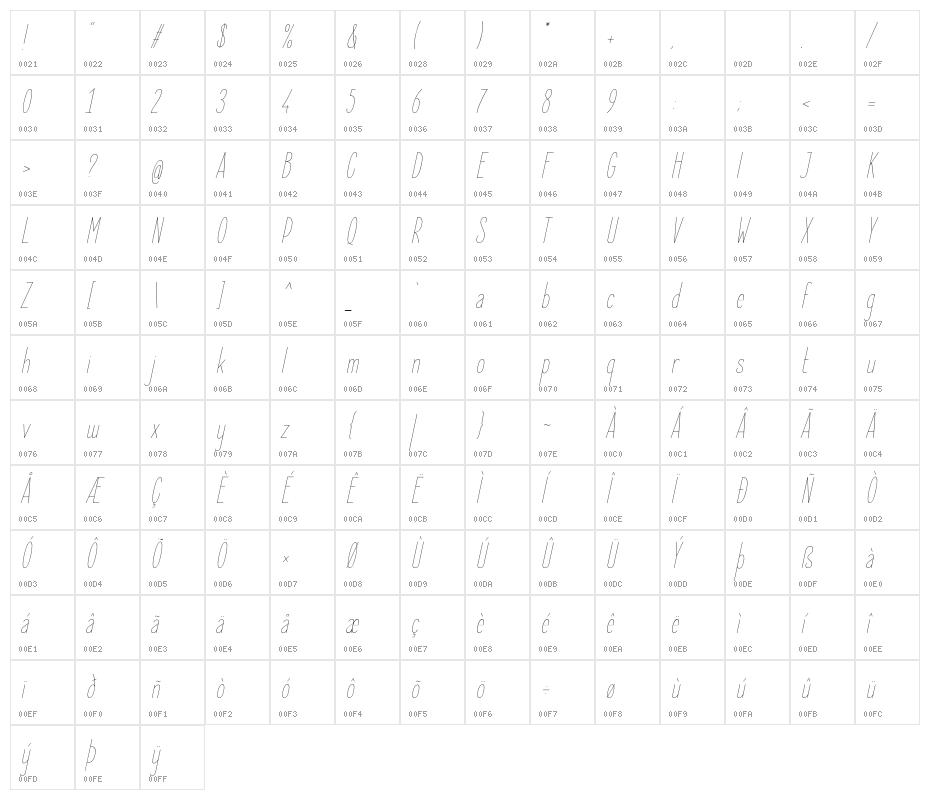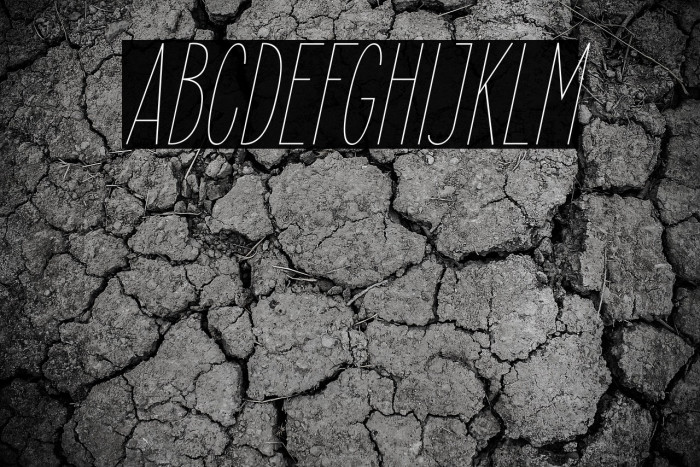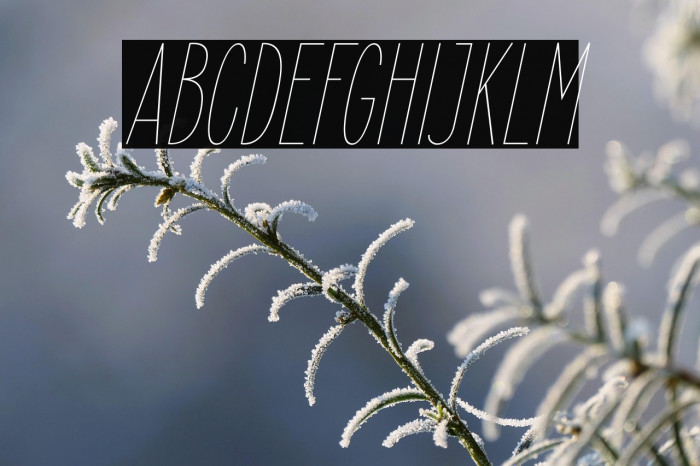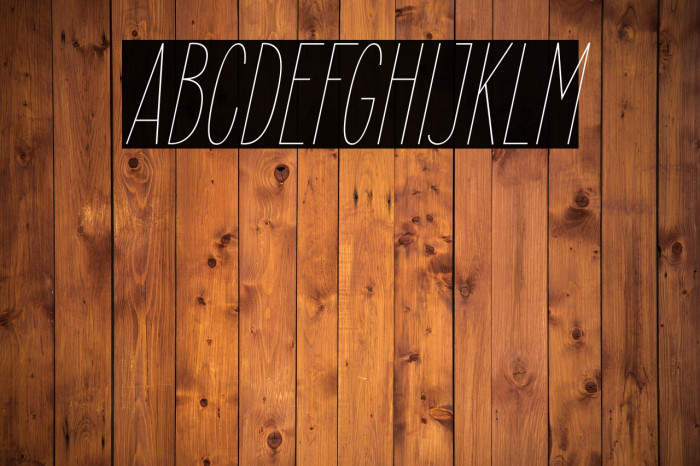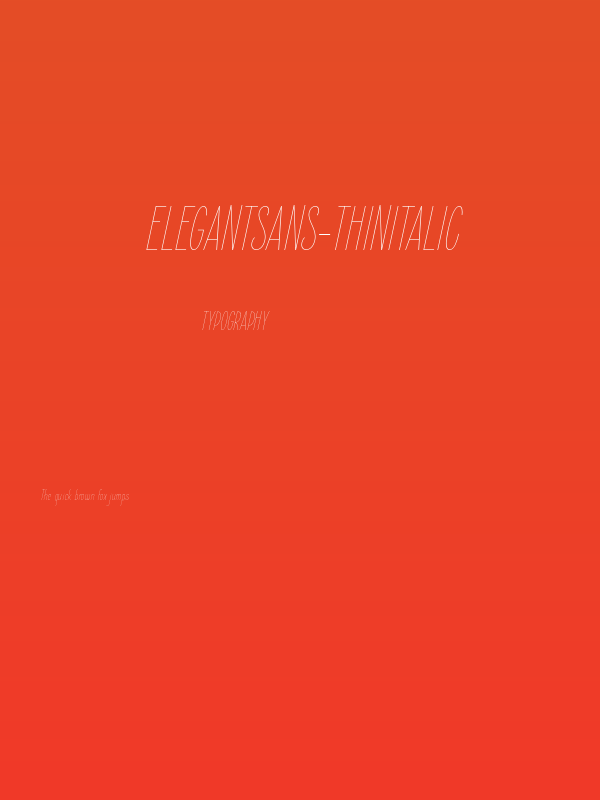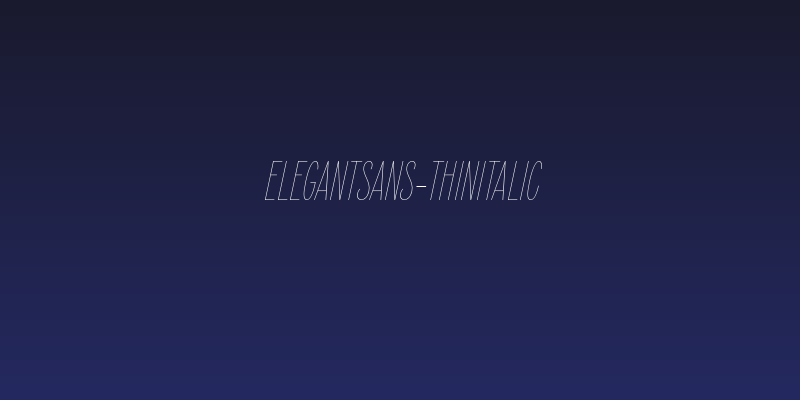
ElegantSans-ThinItalic Font
ElegantSans-ThinItalic Description
This font features a sleek, elongated design with a thin, elegant stroke that gives it a sophisticated and modern appearance. The italic style adds a sense of motion and fluidity, making it ideal for projects that require a touch of elegance and refinement. The characters are well-spaced, ensuring readability while maintaining a stylish look. Its minimalistic design makes it versatile for various applications, from digital to print media.